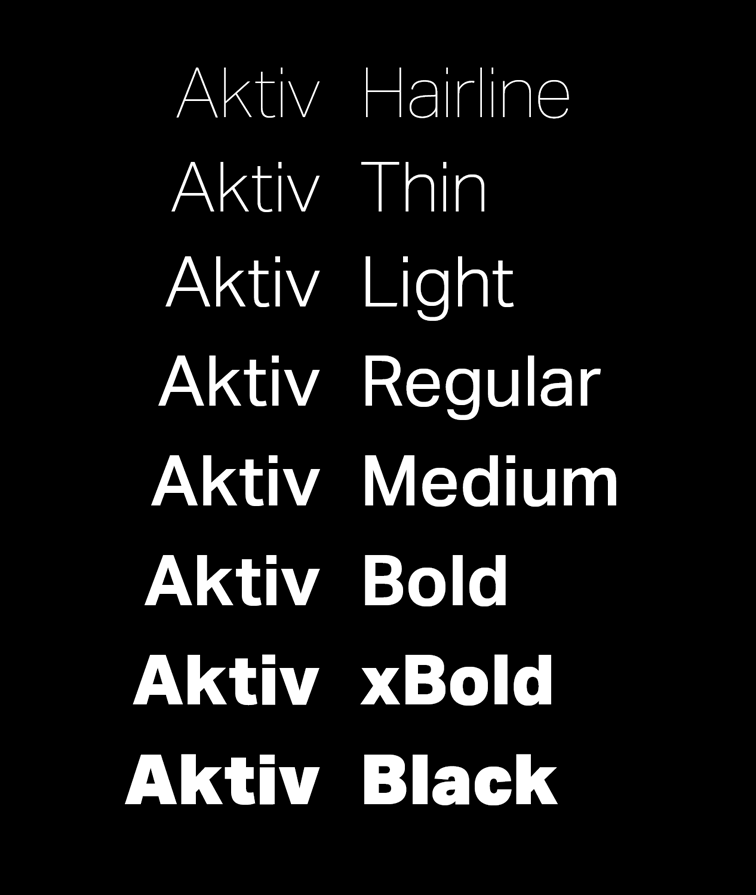
Aktiv Grotesk Font Download Free - A sans serif typeface with 18 styles, available from adobe fonts for sync and. Web explore aktiv grotesk available at adobe fonts. Web you will find that aktiv grotesk pairs well with robust serif fonts, such as the cordale, king’s caslon, and lexia font families.
Web You Will Find That Aktiv Grotesk Pairs Well With Robust Serif Fonts, Such As The Cordale, King’s Caslon, And Lexia Font Families.
A sans serif typeface with 18 styles, available from adobe fonts for sync and. Web explore aktiv grotesk available at adobe fonts.